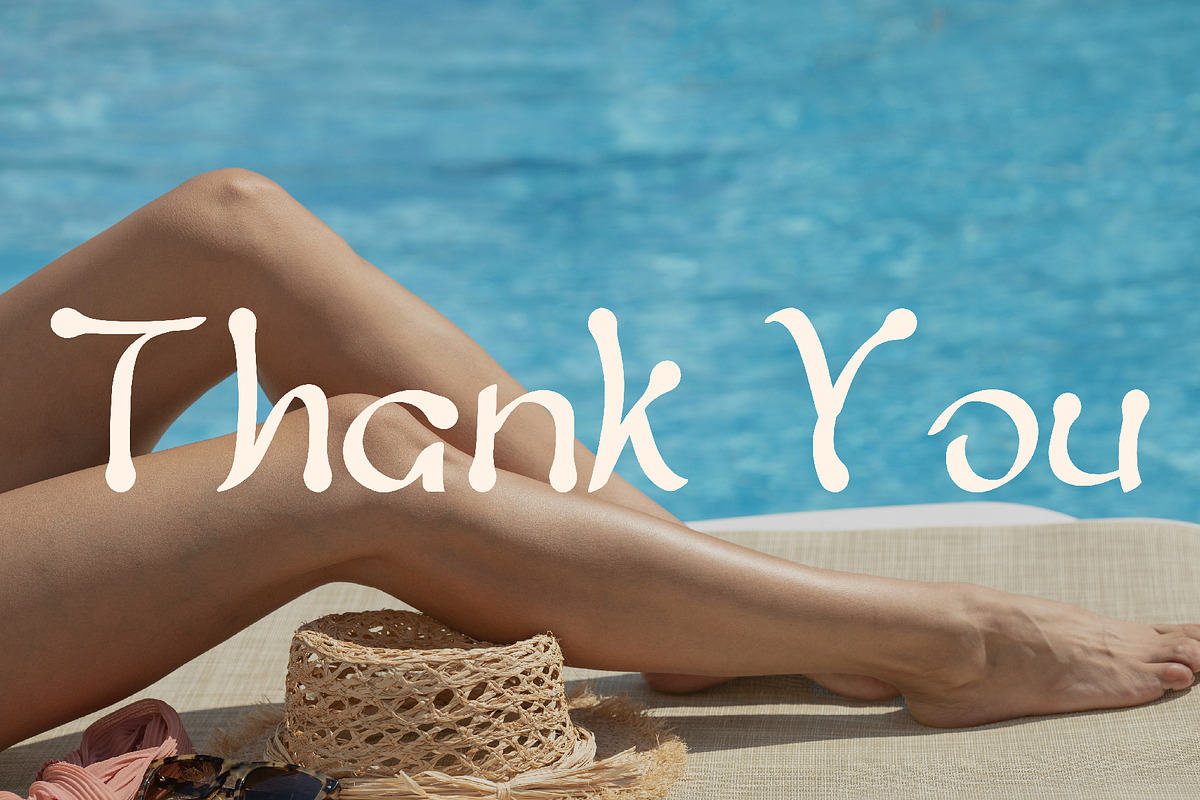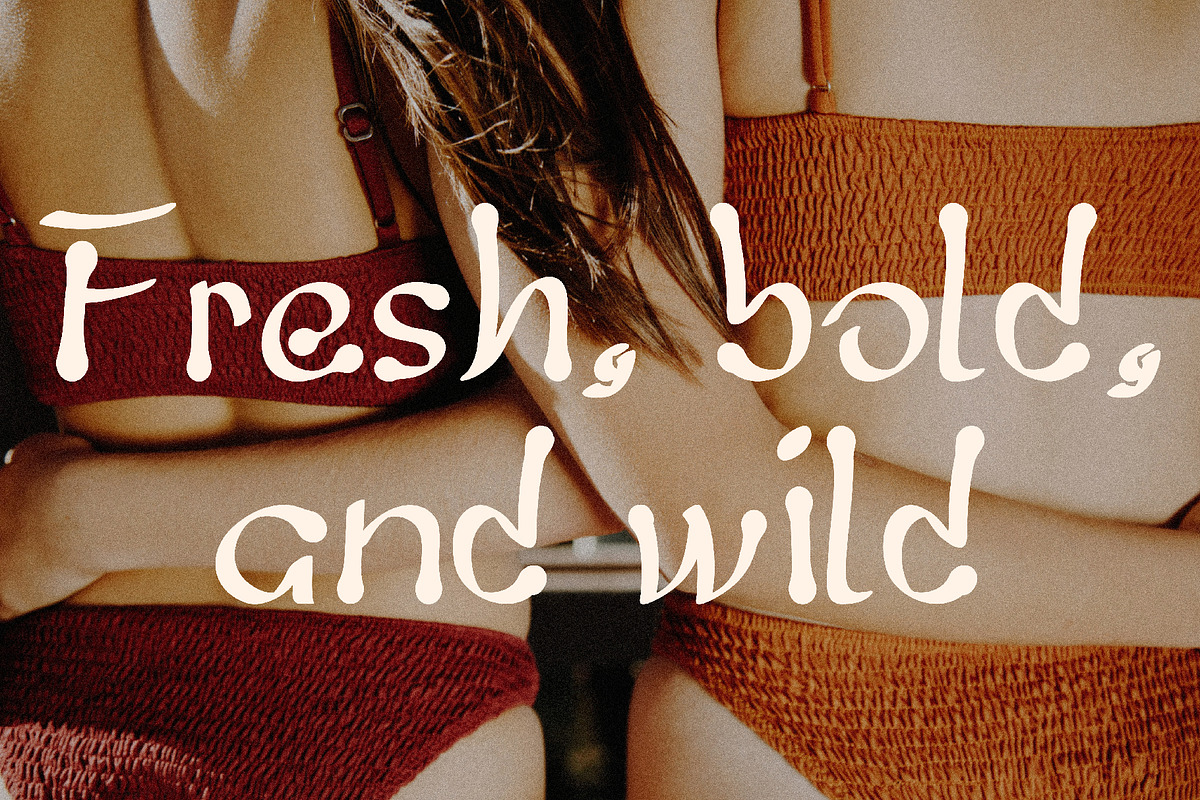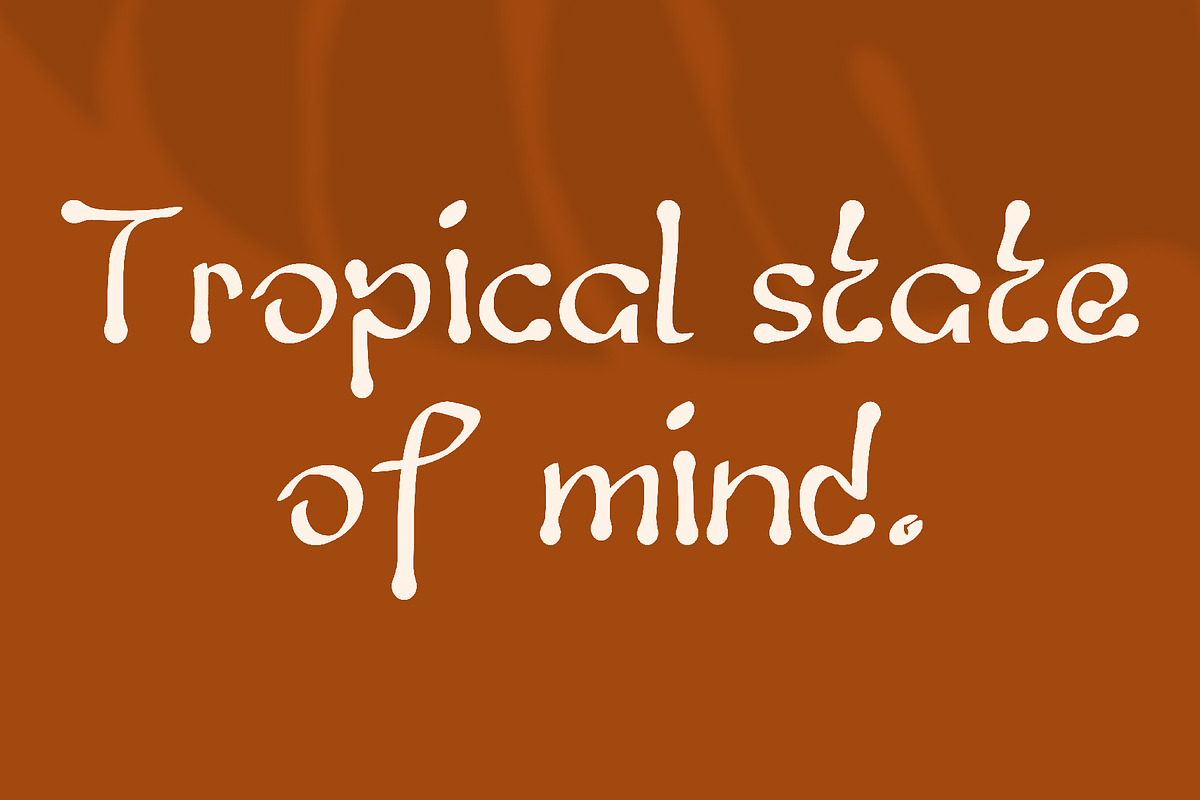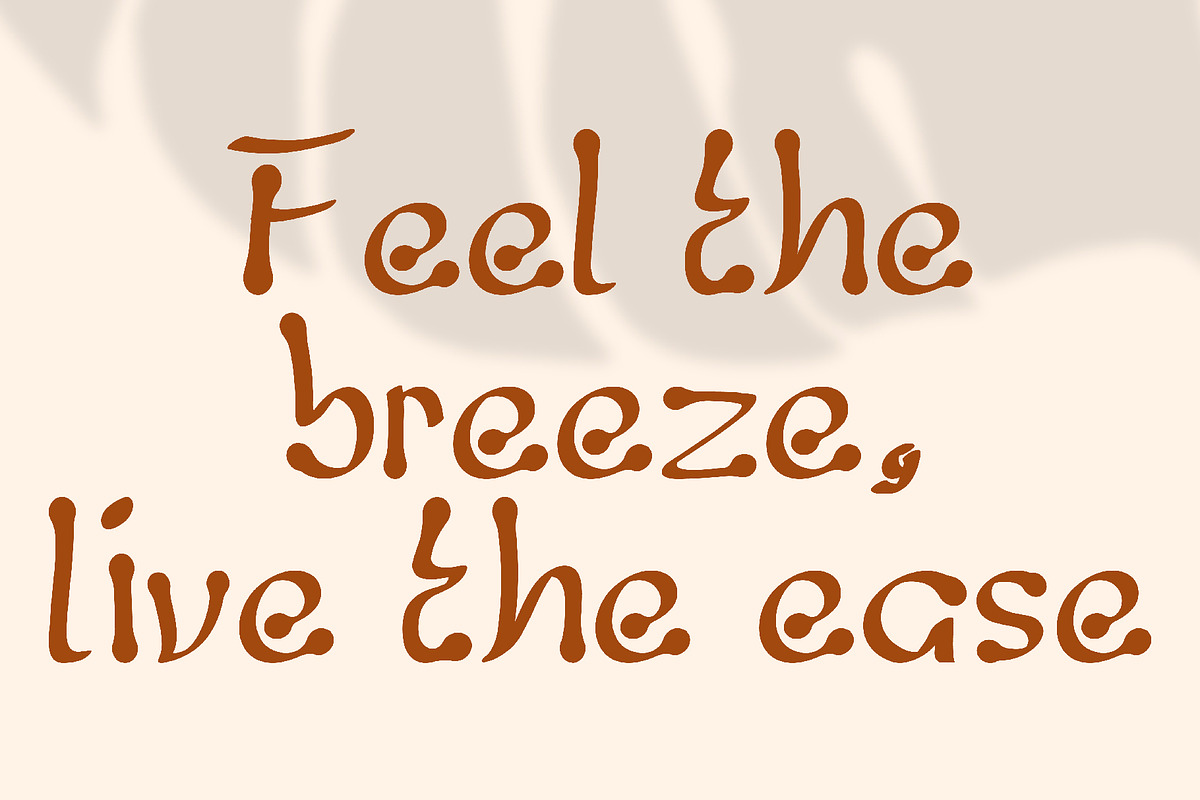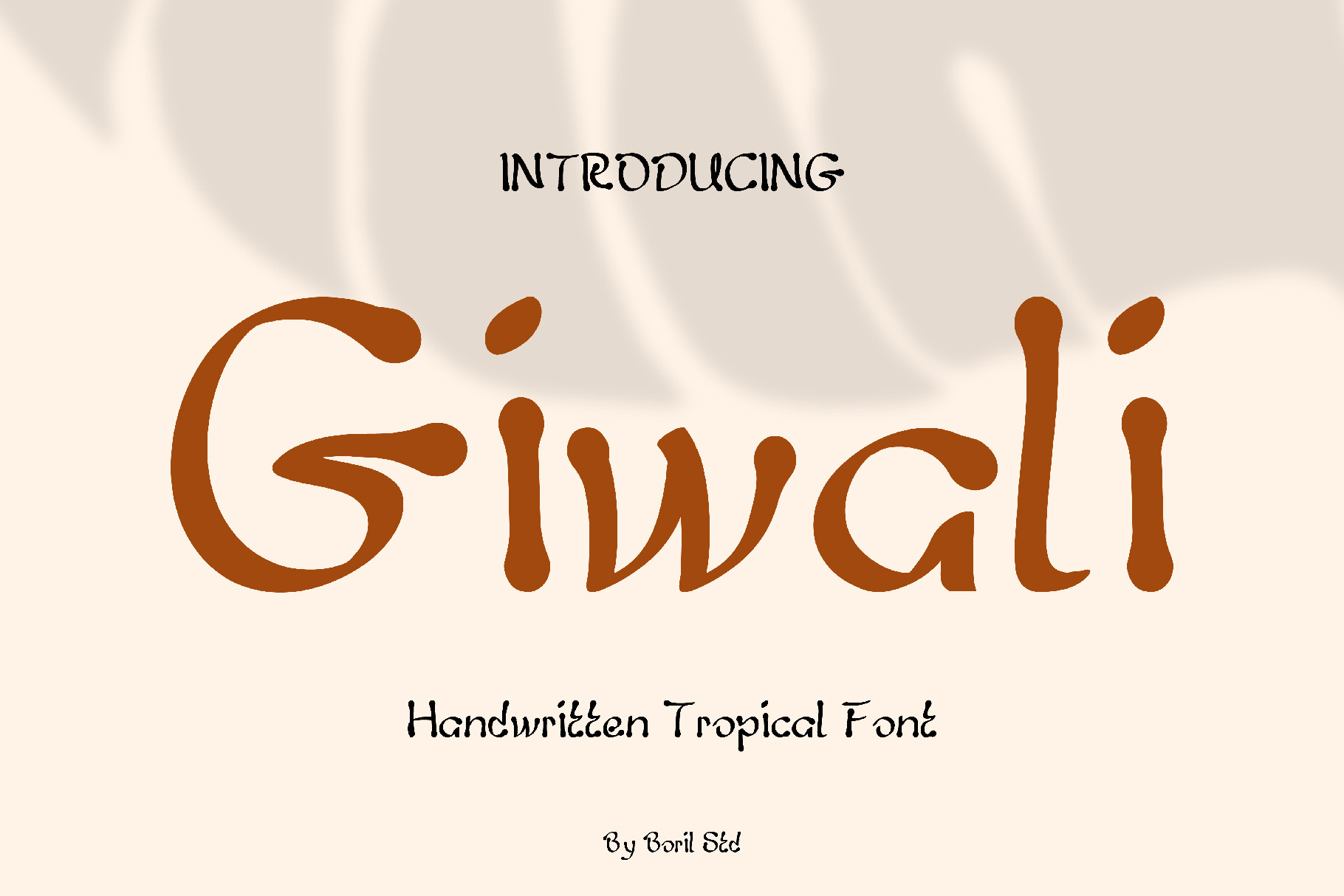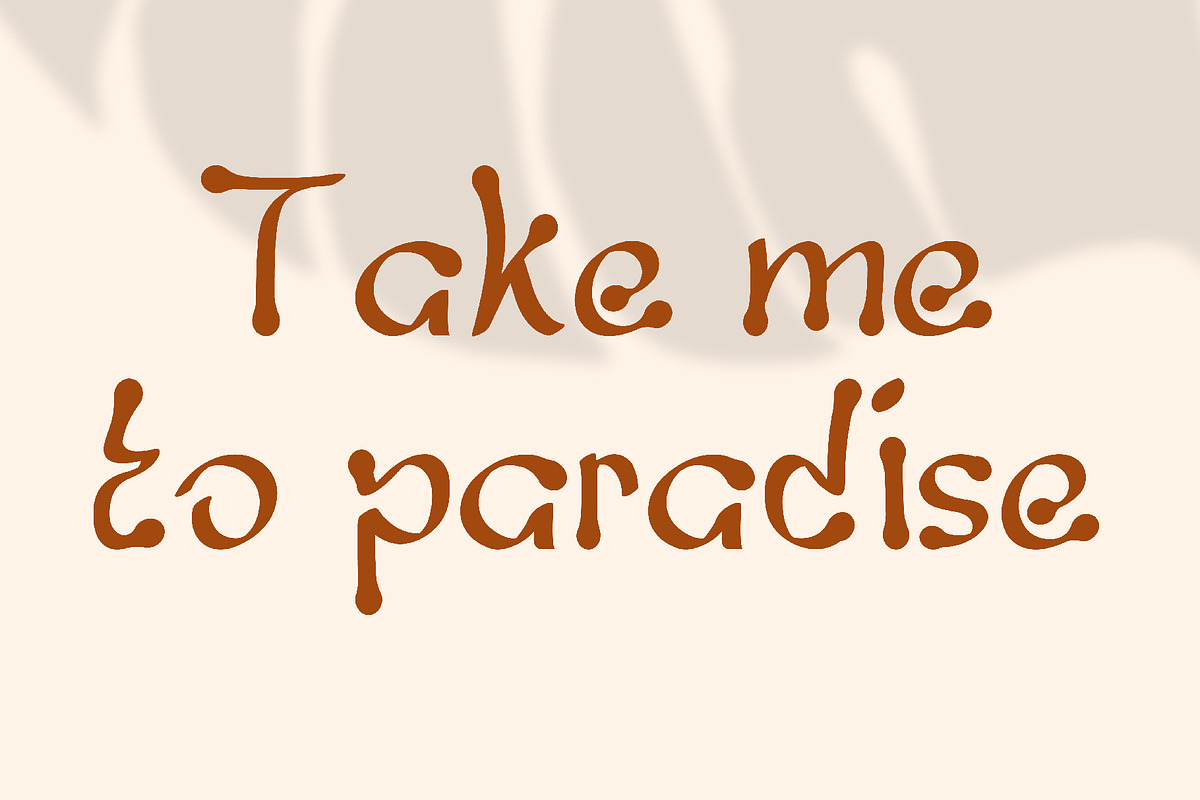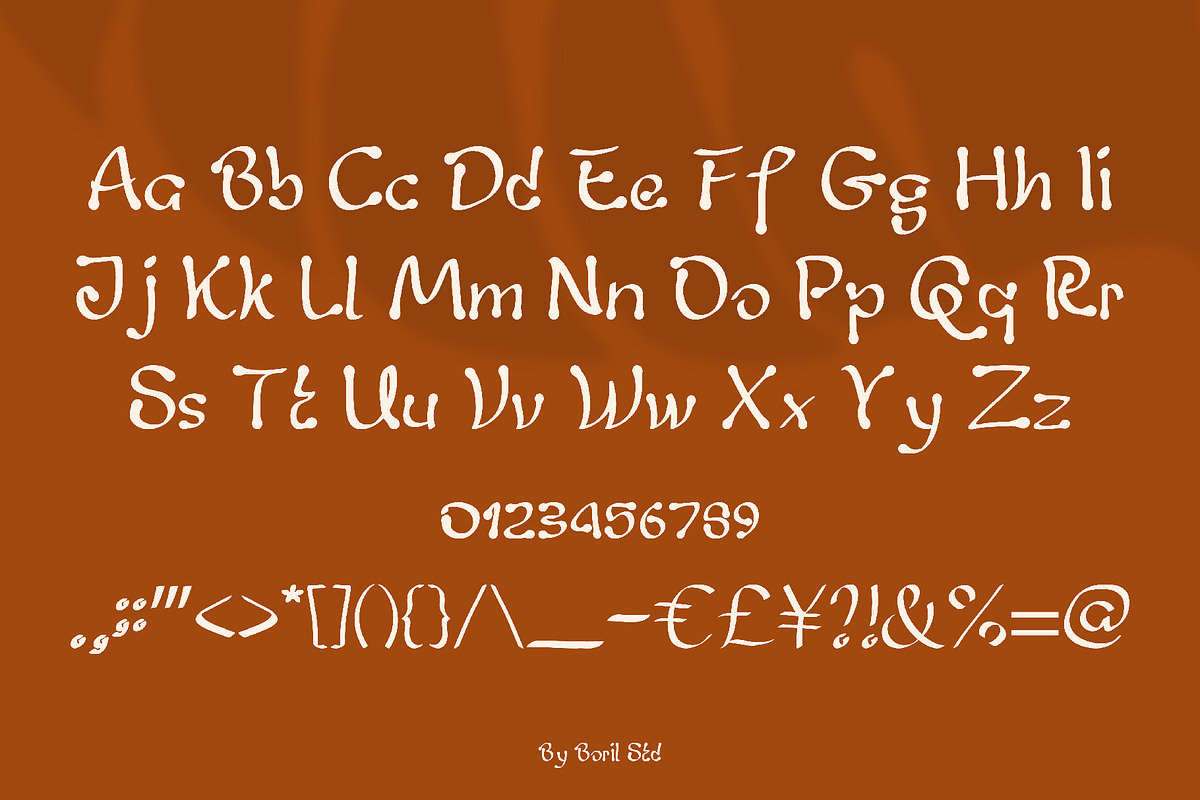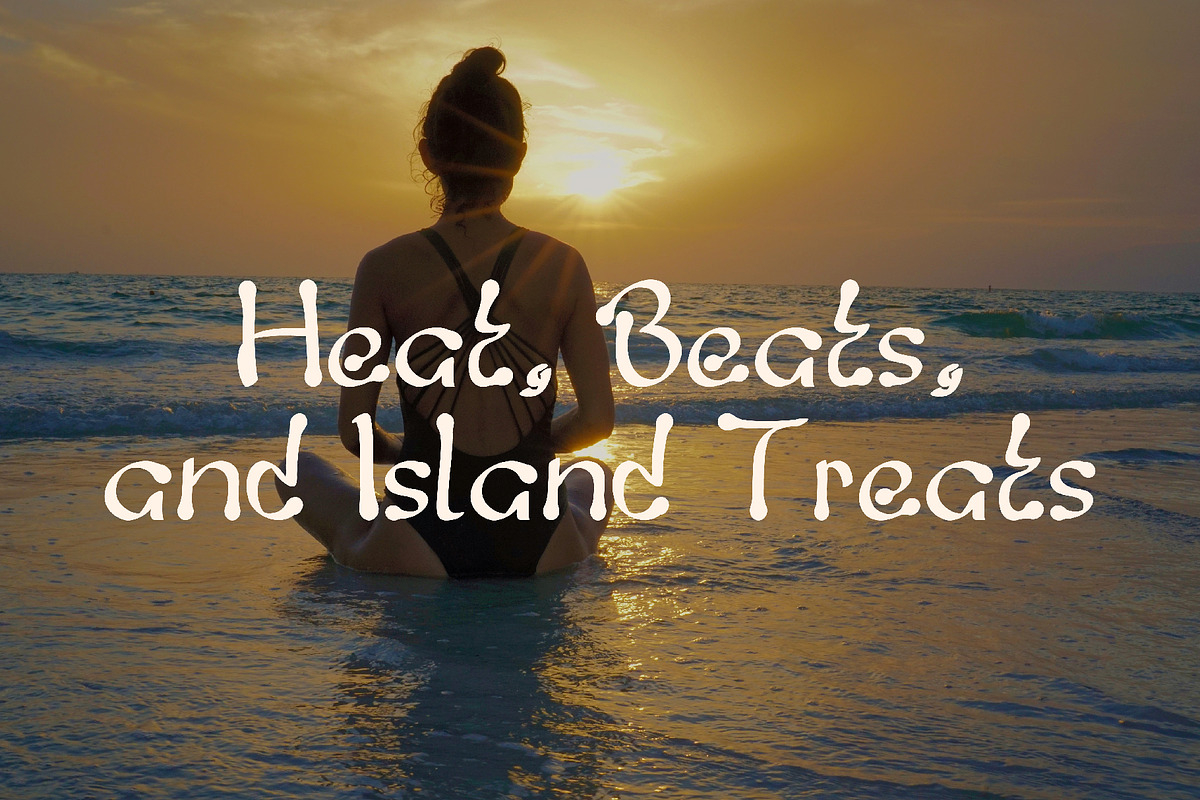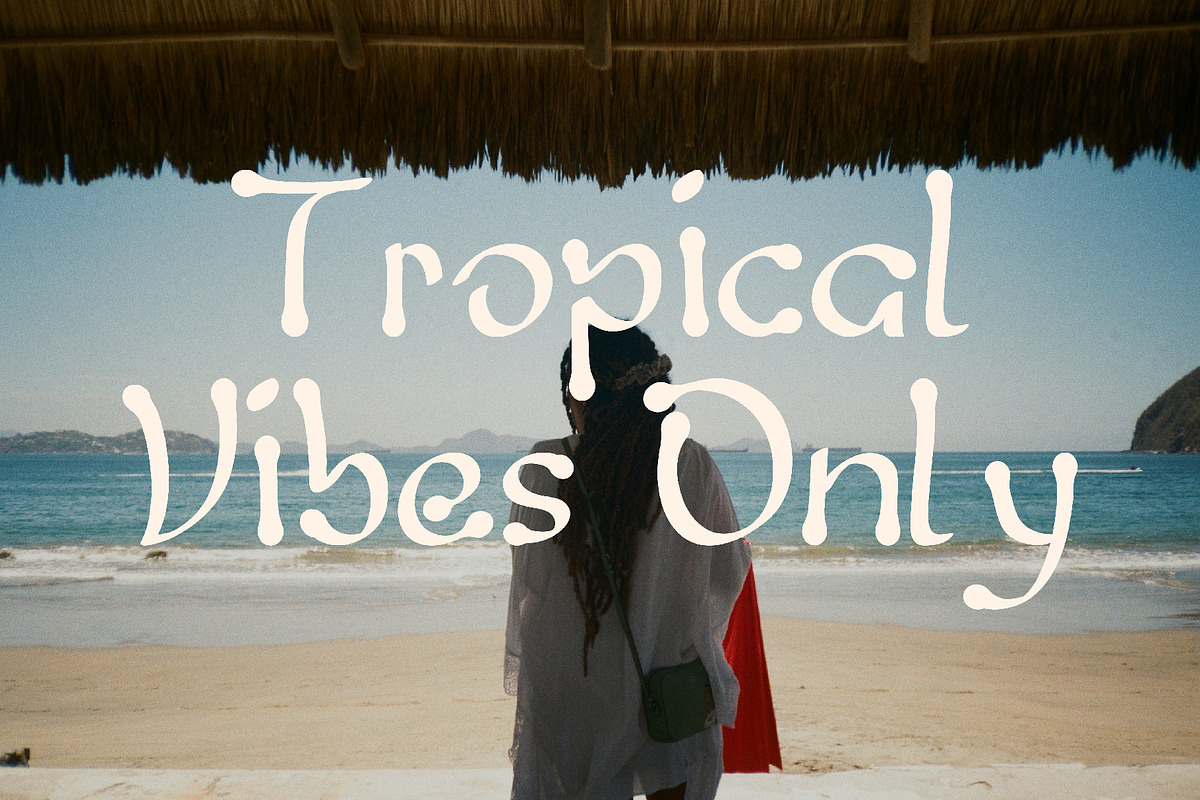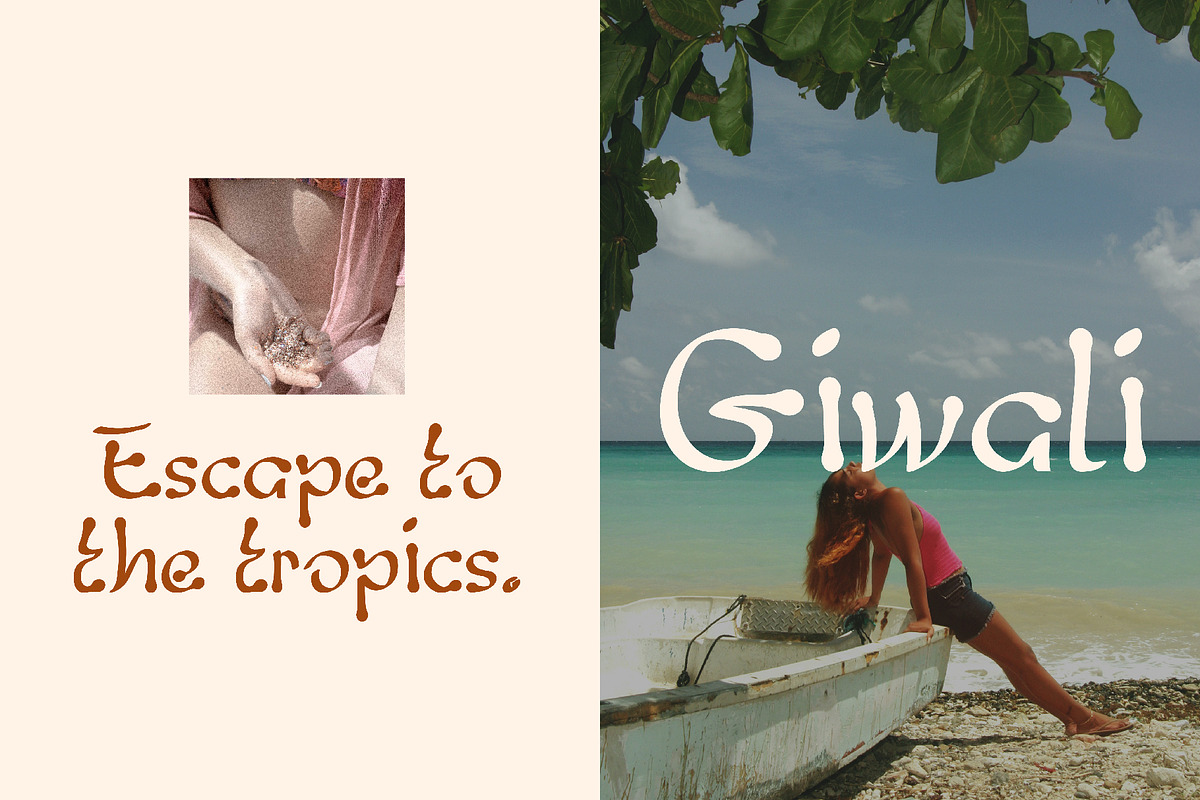
Giwali - Handwritten Tropical Font
The Giwali font has a casual, handwritten character, with organic, asymmetrical, and unique letterforms. The lines appear freehand, creating a natural, friendly, and relaxed feel. The edges of the letters are slightly curved, resembling fine brushstrokes or chalk strokes, creating a warm and playful tropical feel.